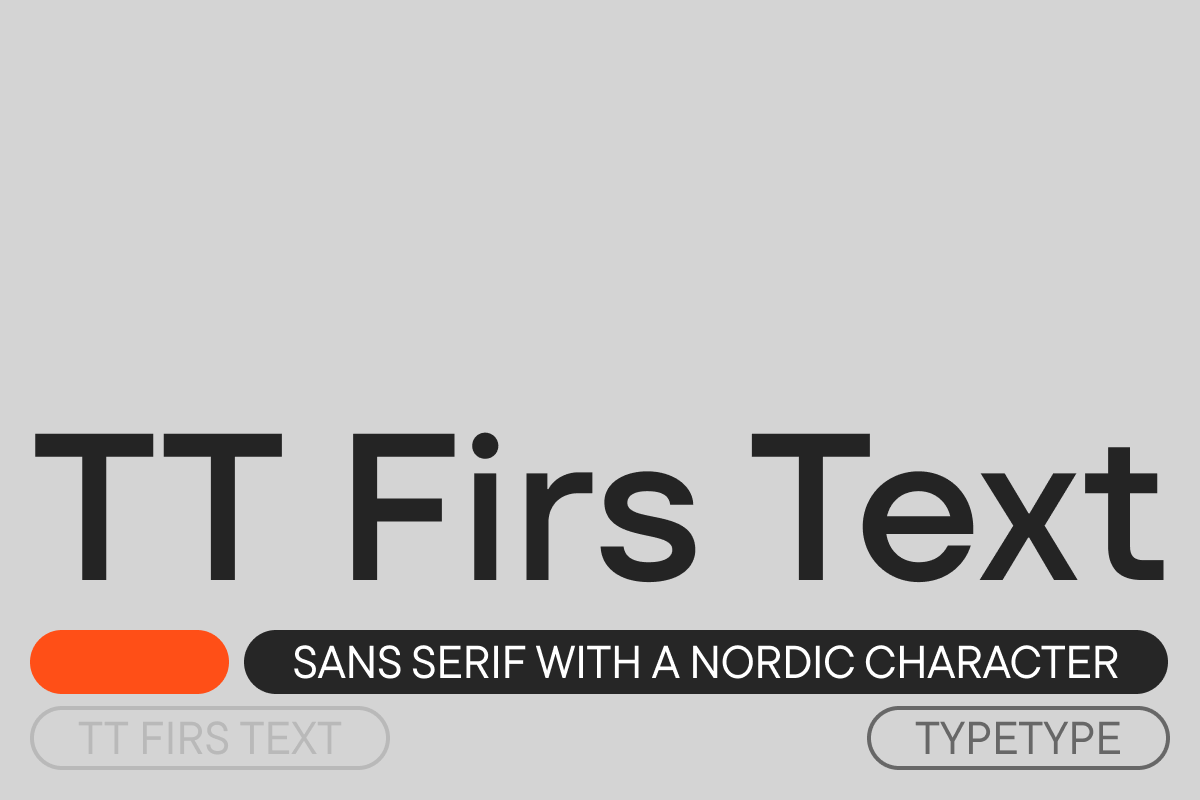
TT Firs Text Bold
TT Firs Text is a text typeface created based on the TT Firs Neue typeface. Our goal was to make it more neutral while still giving it its own unique style. TT Firs Text turned out to be simultaneously cool and elegant, stern and captivating, and most importantly, exceptionally versatile. We preserved the aesthetic of Scandinavian minimalism but completely redrew all the expressive elements, making them softer and more traditional.